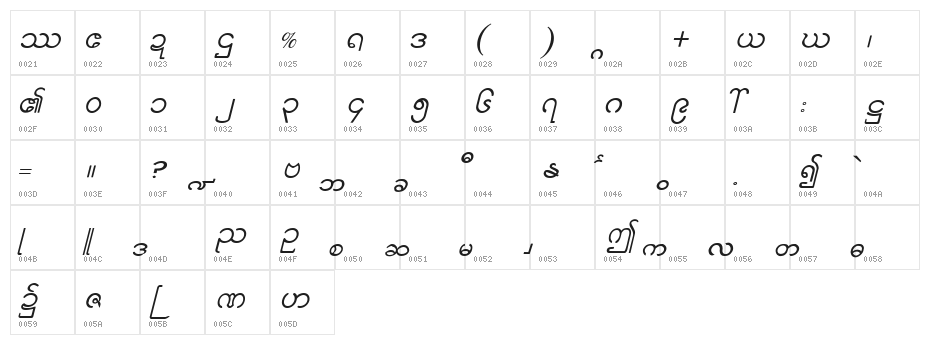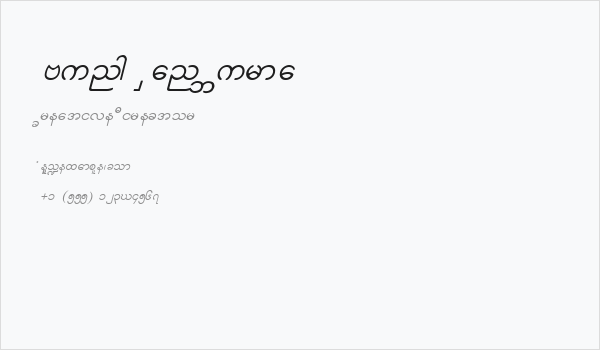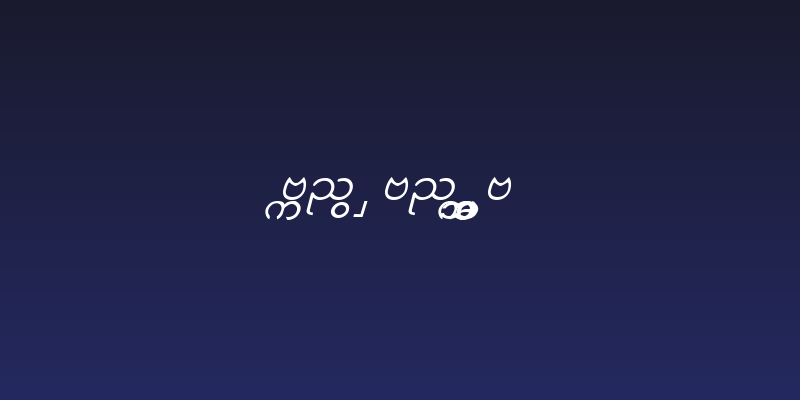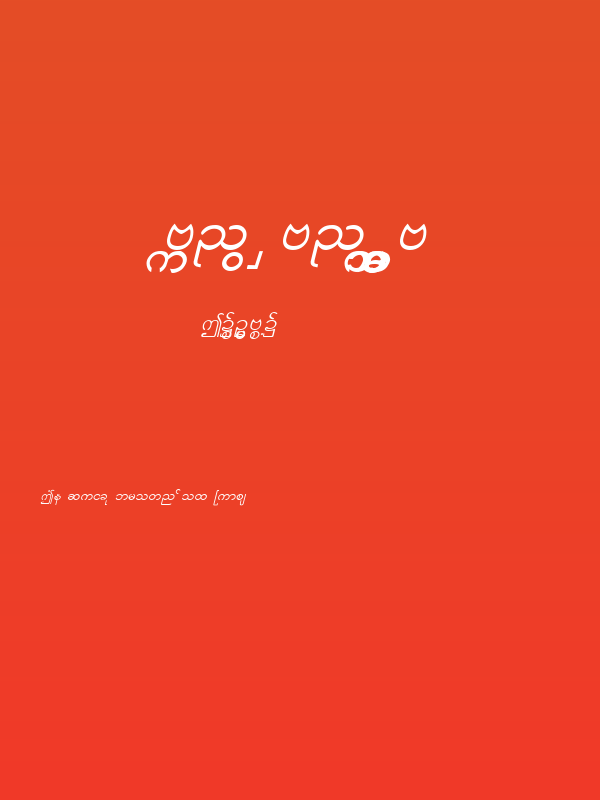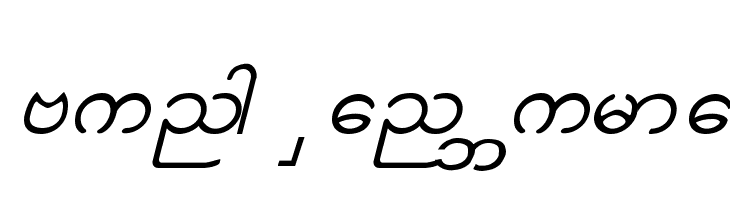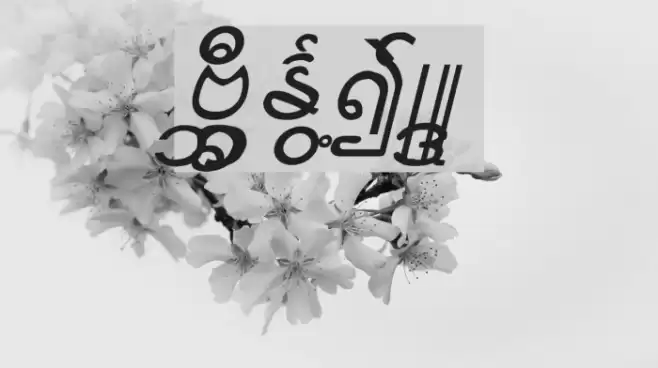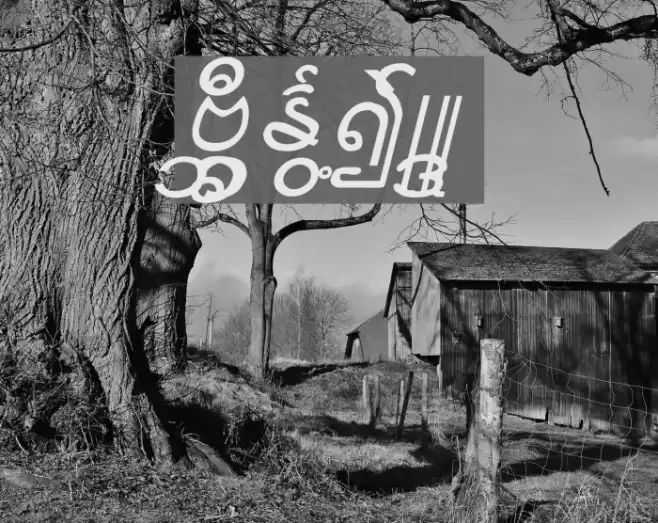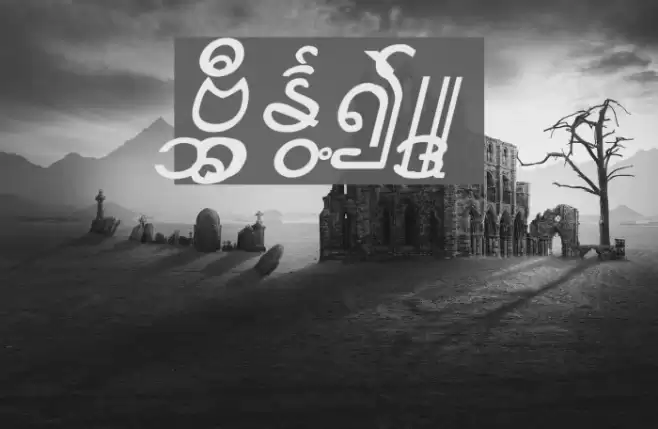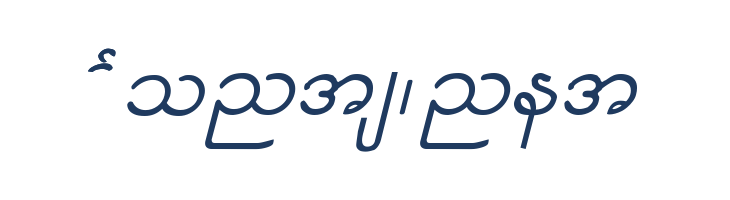
Aung San Burma Font
| Estilo geral | Traditional, Artistic |
| Caso de uso | Headlines, Artistic projects, Cultural publications |
| Projetos propostos | Ideal for cultural publications, artistic projects, branding materials, and educational content related to Burmese language and culture. |